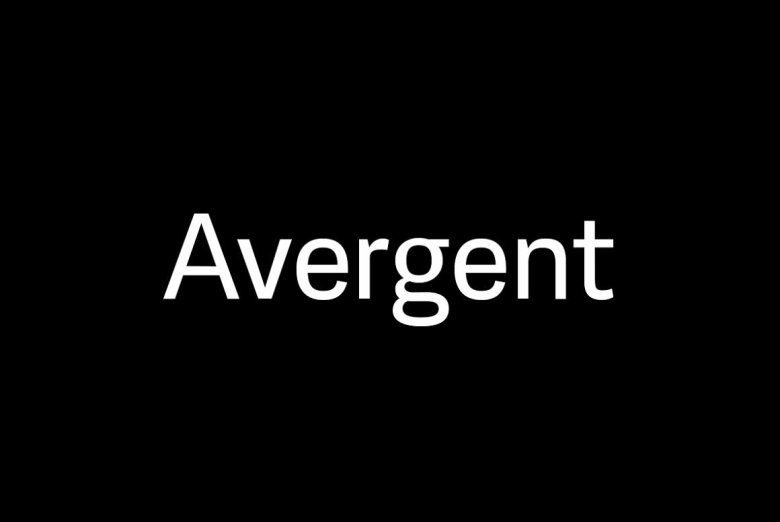
Avergent Font
Avergent Font is a simple display sans serif typeface designed for modern corporate branding, copy ads, and much more. Its optimum legibility, clean, and geometric look is perfect branding, brochures, greeting cards, quotes, posters, stationary, design titles, blog headers, and much more.